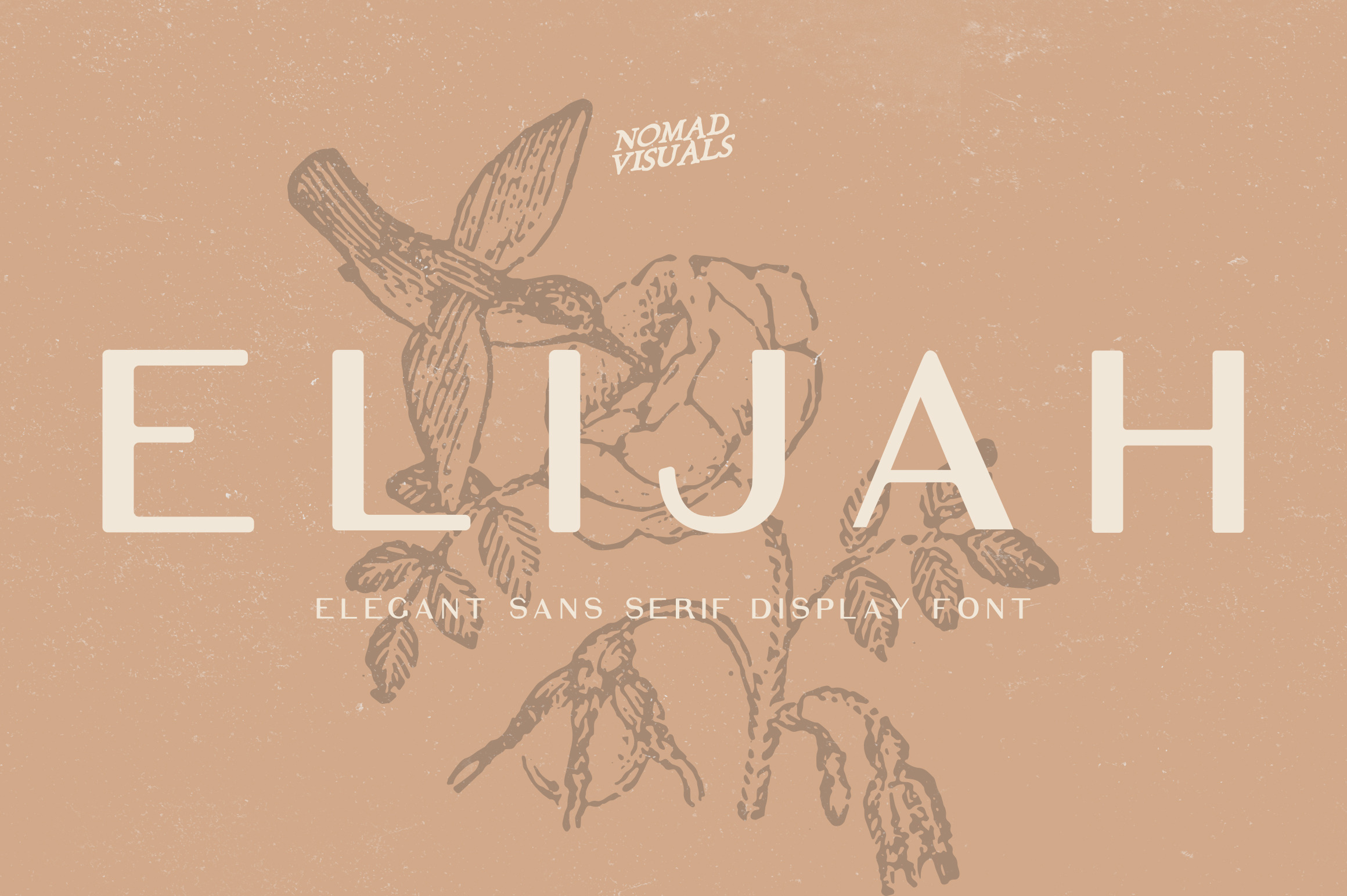
Introducing
ELIJAH - A Elegant Display Sans Serif font
Elijah is a hand drawn sans serif display font that features uppercases, lowercase, numbers, and basic punctuation.
Elijah display font will do an amazing job in logo design, brands and labels. It's perfect to give a unique vibe to your digital products and websites.